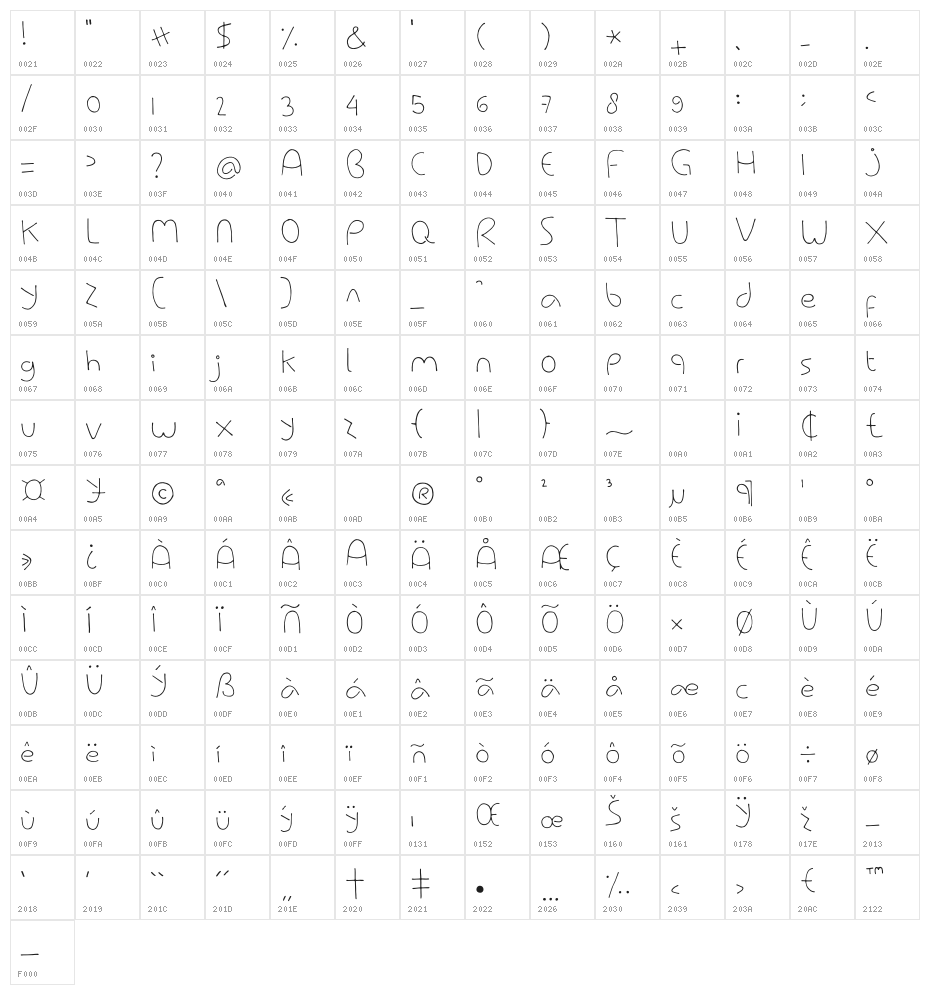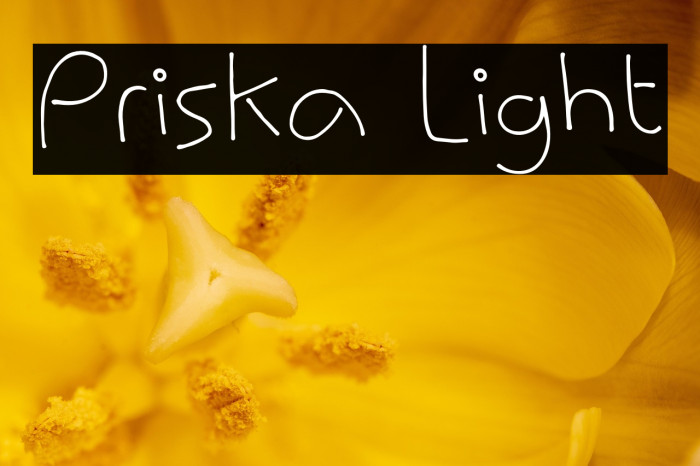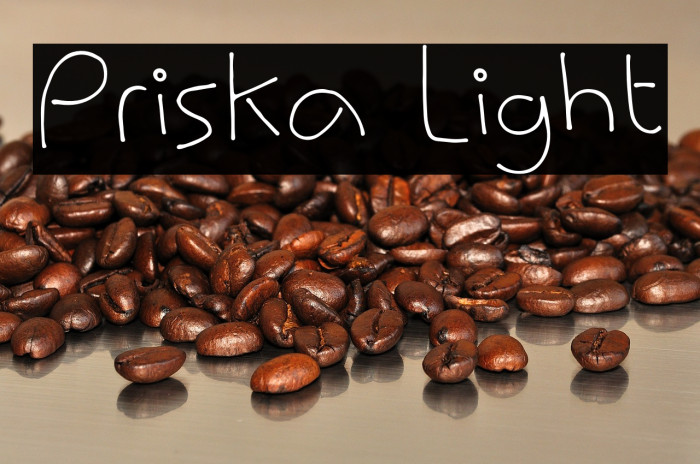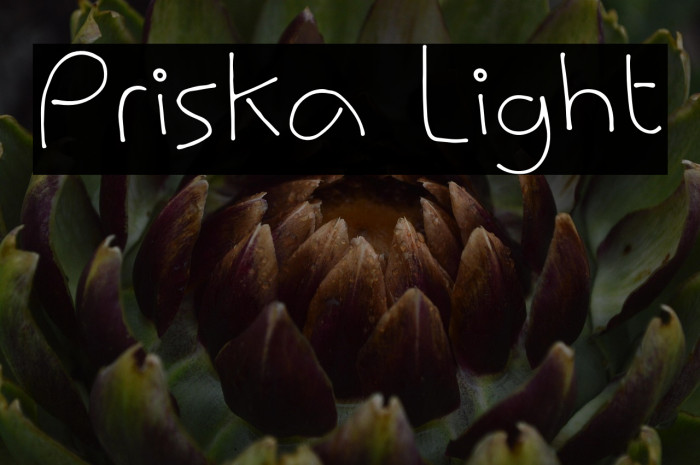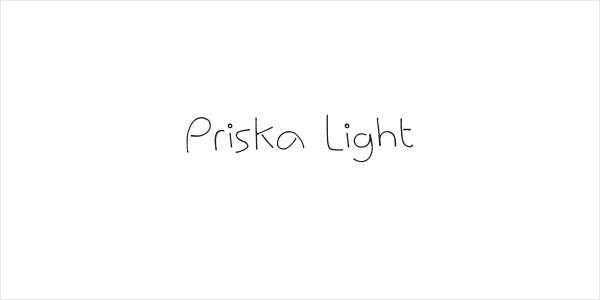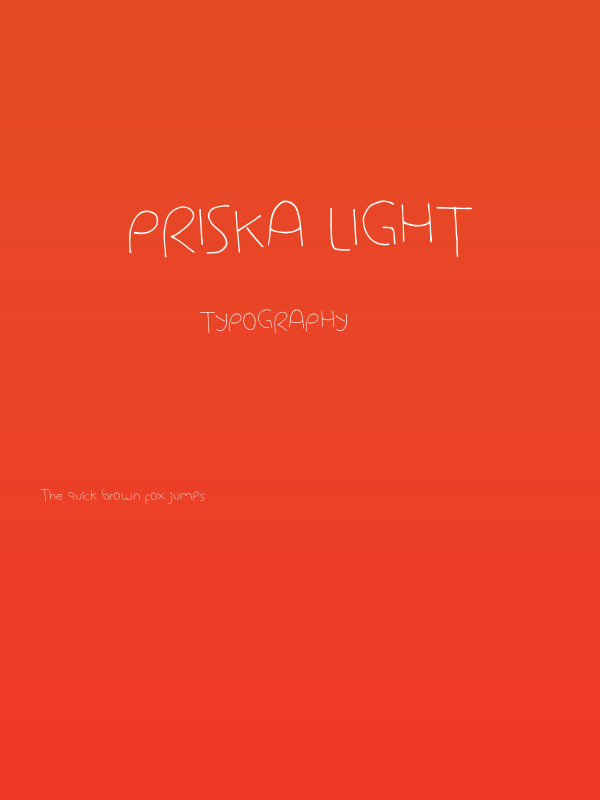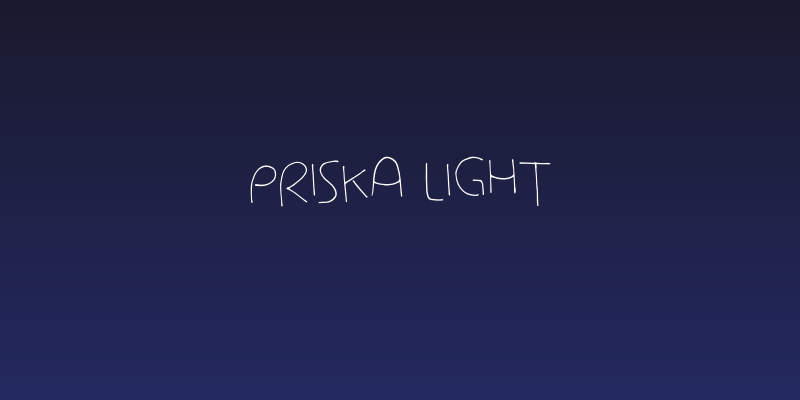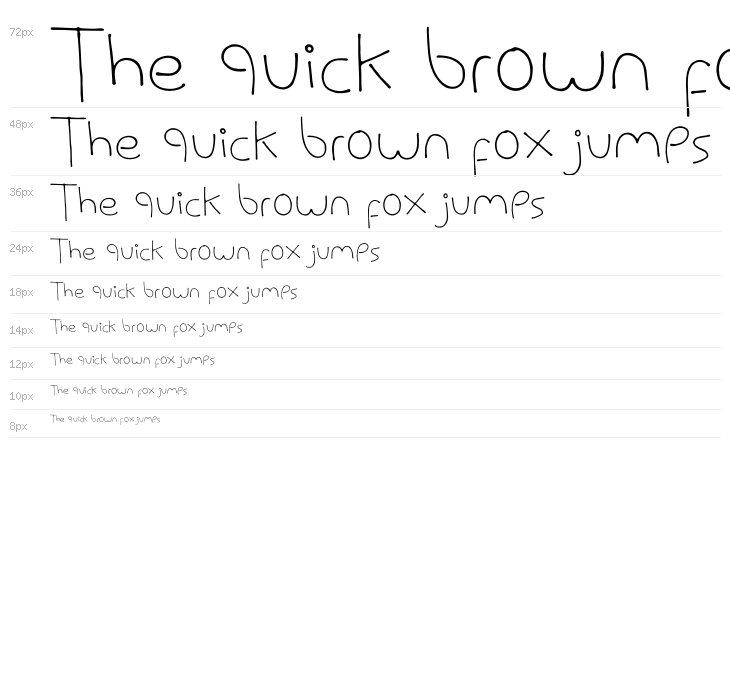
Priska Light Font
Priska Light Description
This font features a playful and whimsical design, characterized by its thin, rounded strokes and minimalistic style. The letters are slightly irregular, adding a hand-drawn feel that is both casual and approachable. The uppercase and lowercase letters maintain a consistent height, while the numerals and special characters blend seamlessly with the overall aesthetic. The font's simplicity and charm make it suitable for projects that require a friendly and informal touch.
| Use Case | Headlines, Informal text, Branding |
| Proposed Projects | Ideal for children's books, greeting cards, casual invitations, and playful branding. |